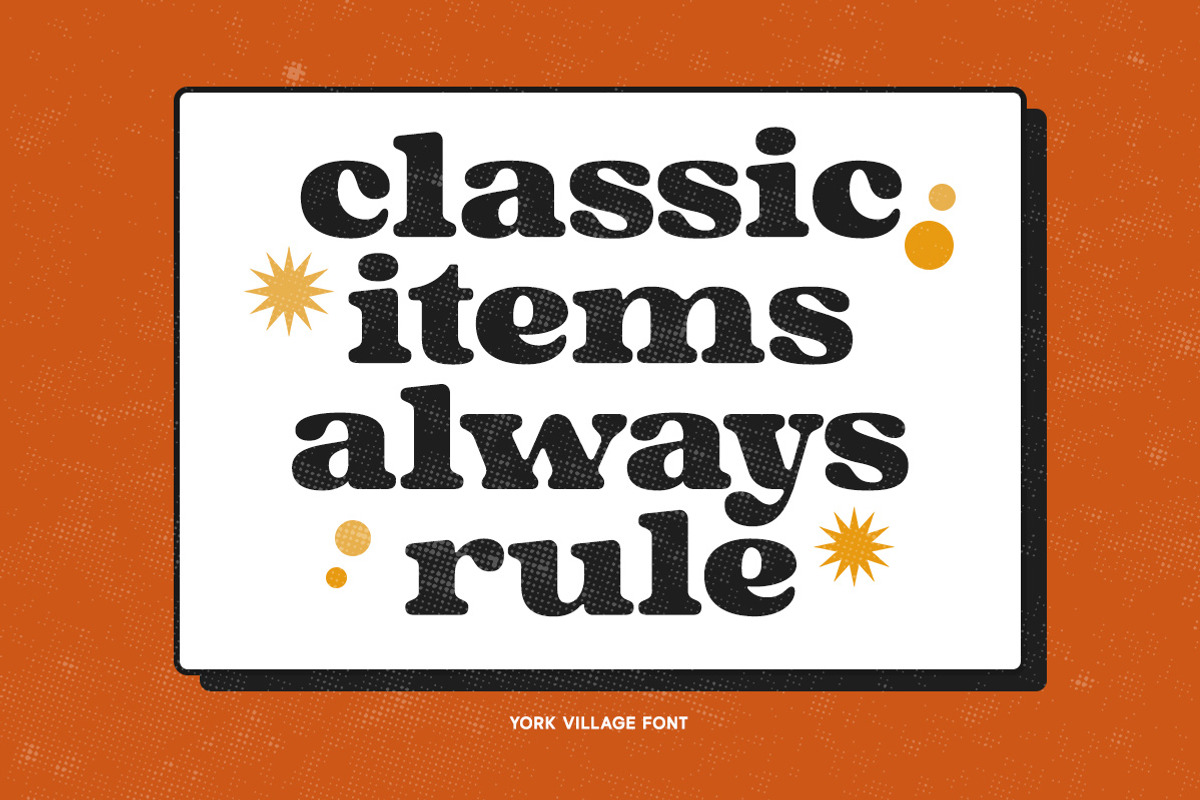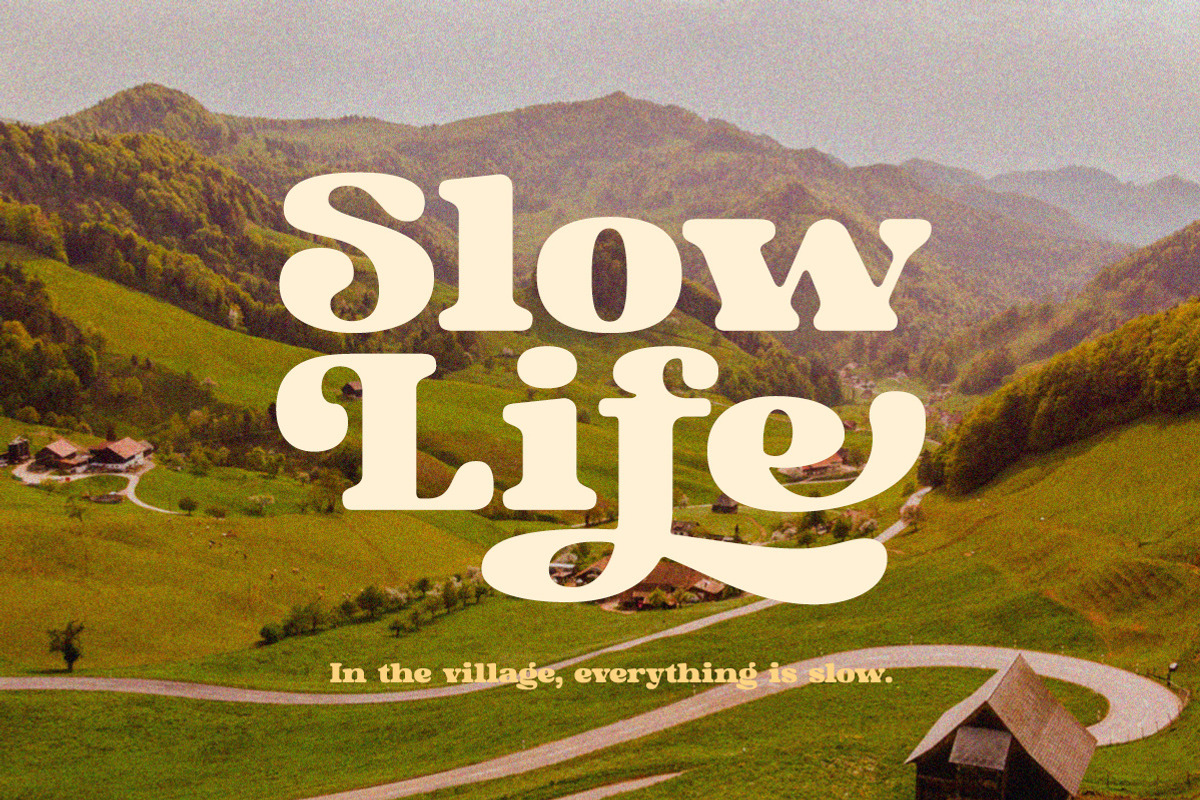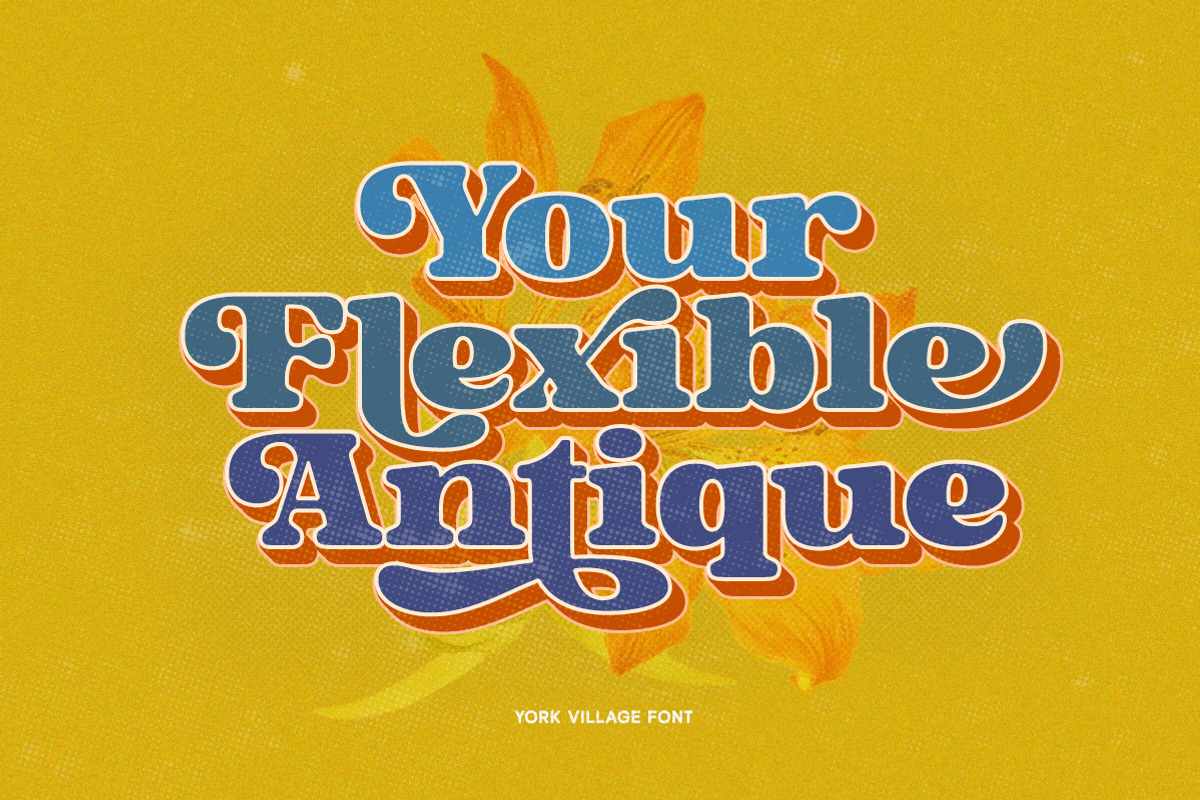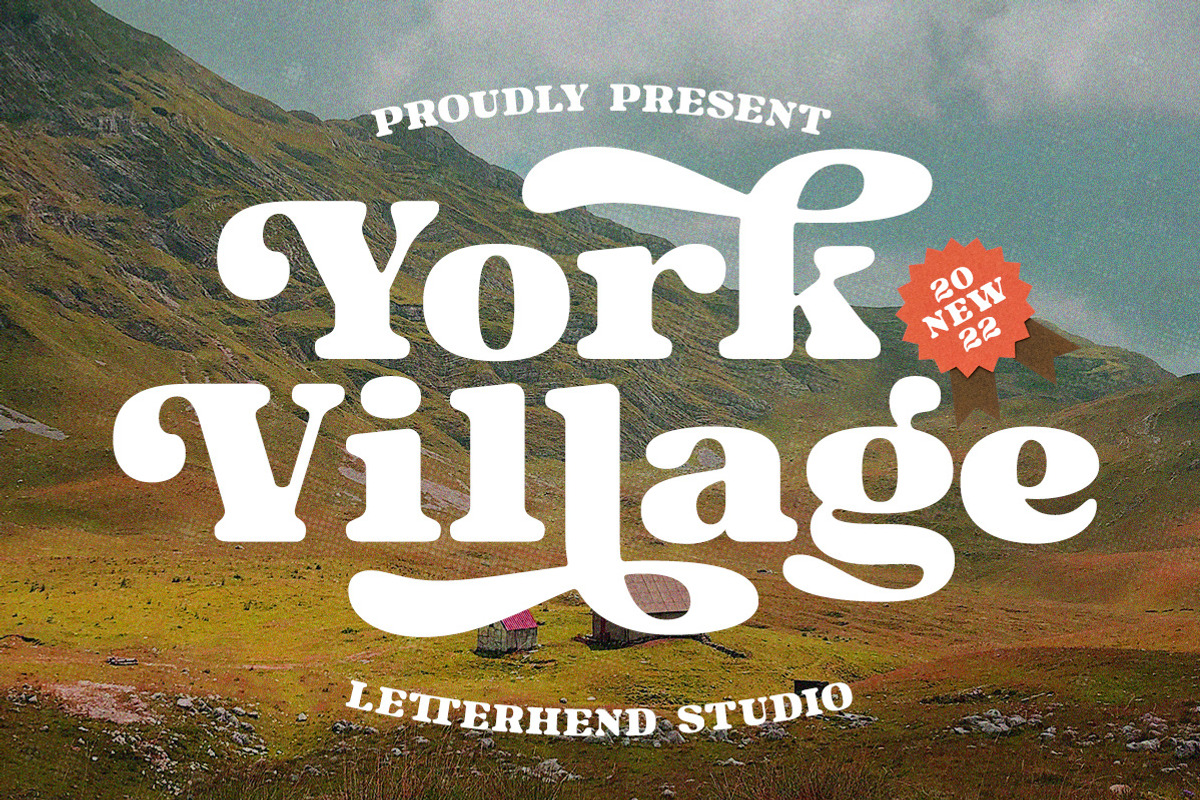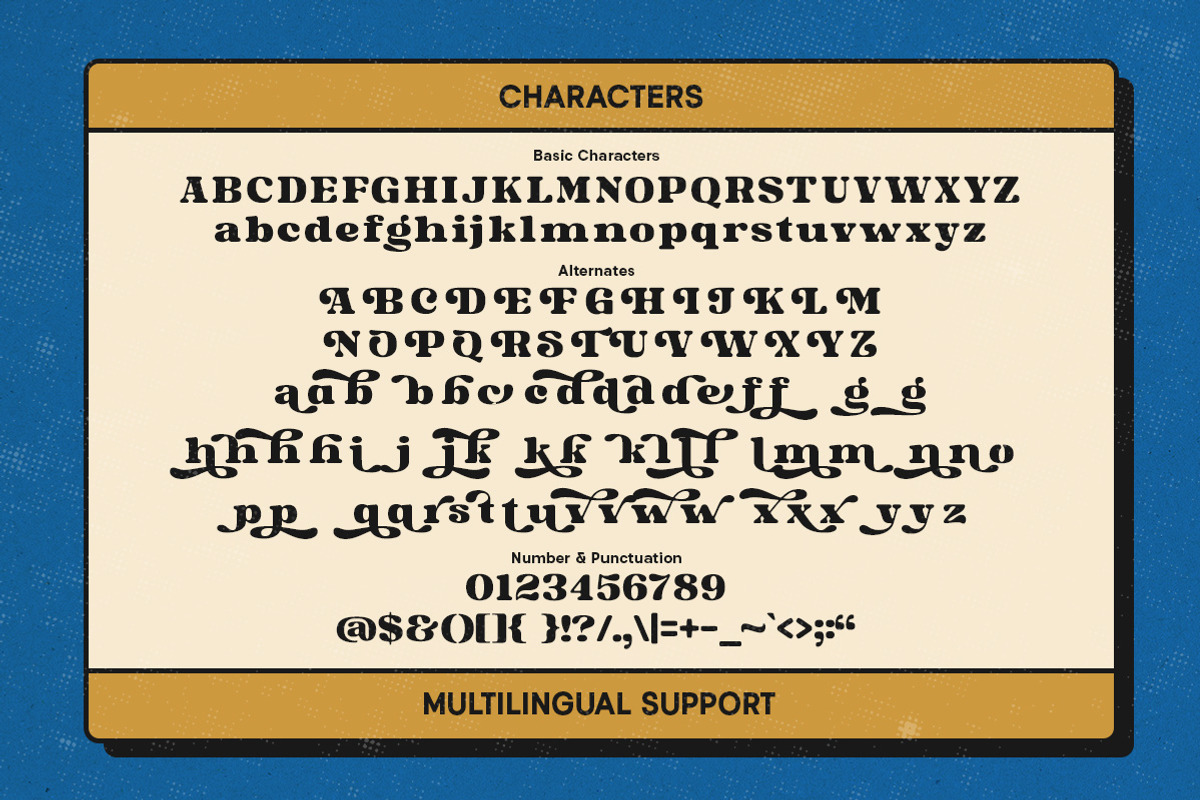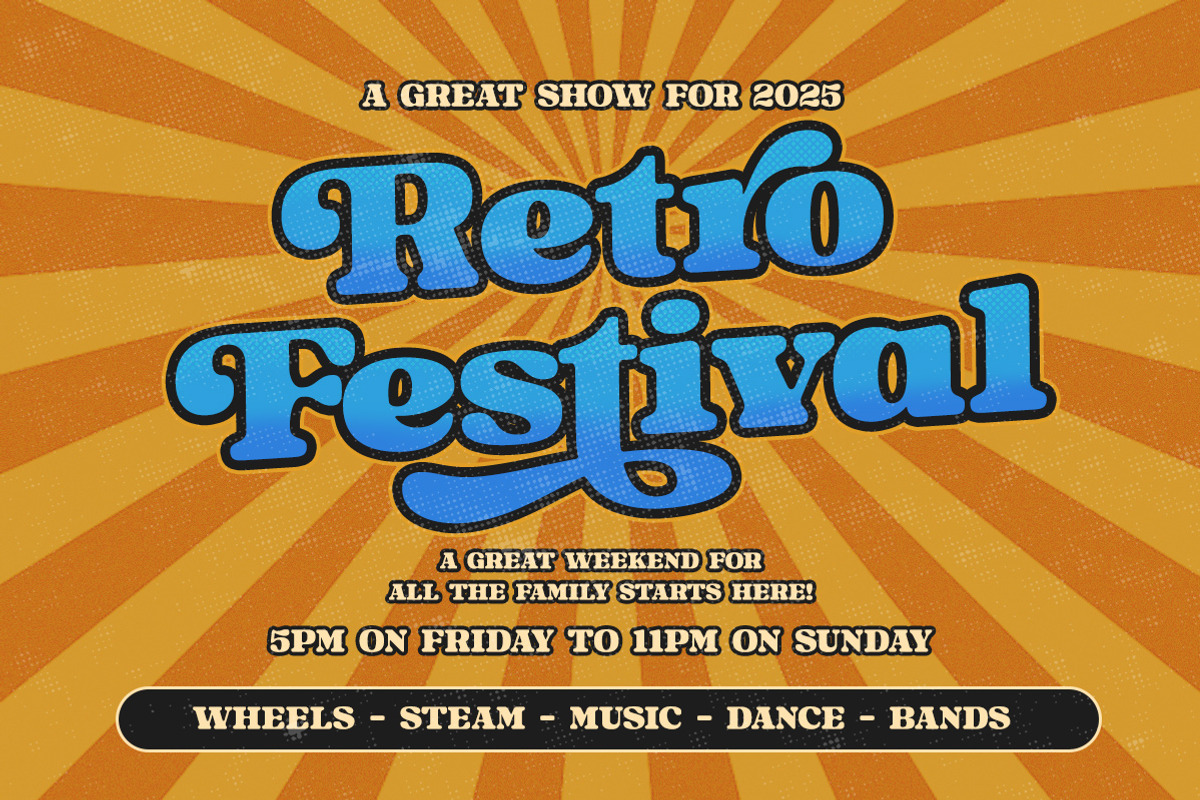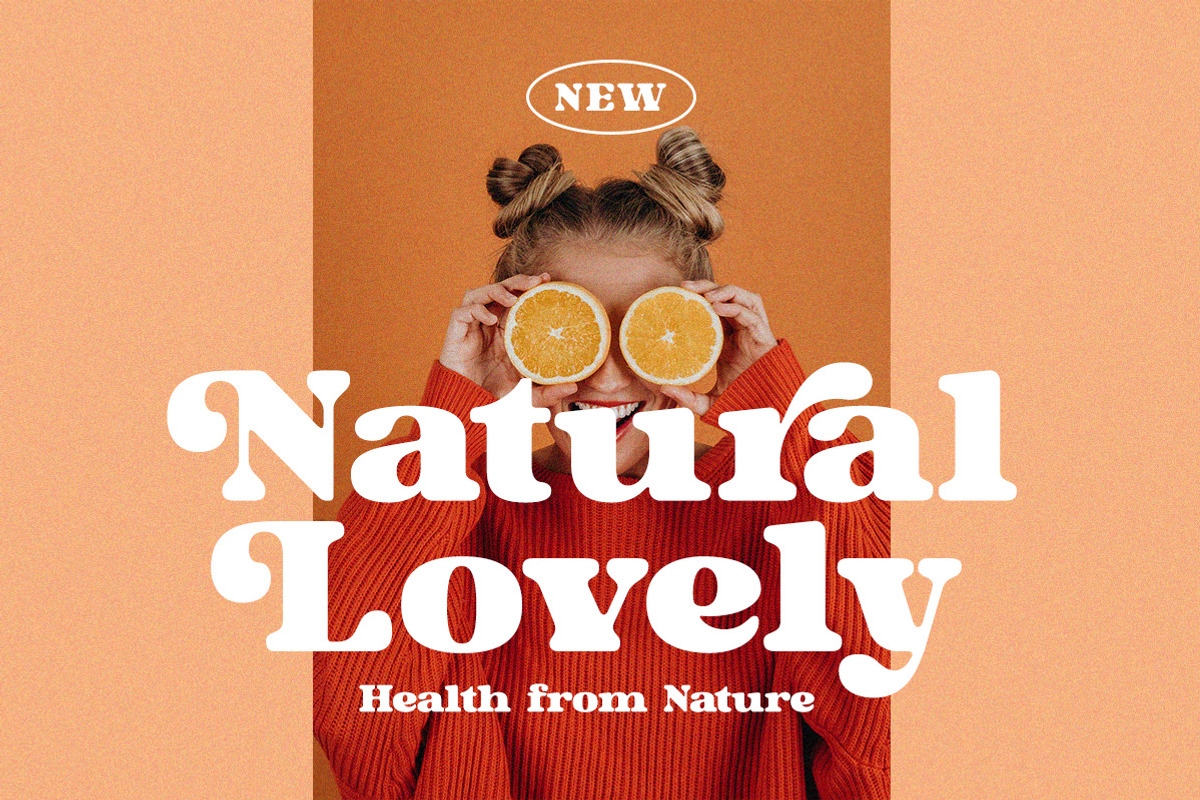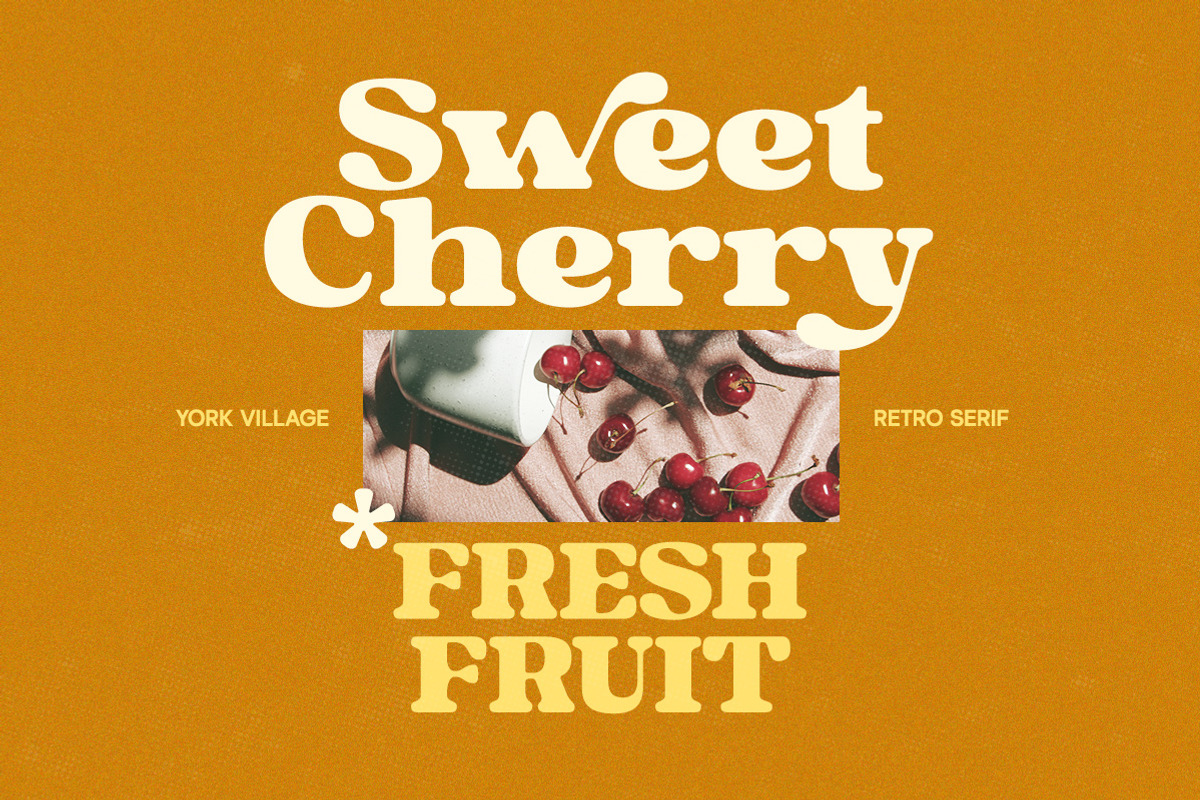
York village - Retro Display Font
York Village is a stylish retro font with swashes. The stylistic alternates and ligatures make this font event more unique and stands from the crowd, with 70s vibe. This font perfectly made to be applied especially in logo, and the other various formal forms such as invitations, labels, logos, magazines, books, greeting / wedding cards, packaging, fashion, make up, stationery, novels, labels or any type of advertising purpose.
- alternates, swashes & ligatures